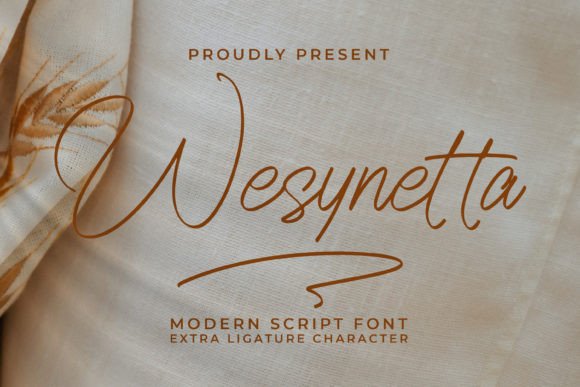
Immerse yourself in the world of Wesynetta, a script font that exudes charm and grace. Crafted by the talented hands at integritypestudio, Wesynetta is a visual masterpiece that captures the essence of timeless elegance.
With its intricate curves and flowing strokes, Wesynetta adds a touch of sophistication to any project. Whether you're designing logos, branding projects, or creating homeware designs, Wesynetta's versatility knows no bounds.
Picture your designs adorned with Wesynetta's beautiful characters, each letter a work of art in its own right. Product packaging, mugs, and quotes will come alive with a touch of sophistication, while posters and shopping bags will exude an air of exclusivity.
Imagine your t-shirts, book covers, and name cards transformed into canvases of creativity, where Wesynetta's elegant lines dance across the page. Invitation cards and greeting cards will carry a heartfelt message, while labels and photography will be elevated to new heights of beauty.
Weddings, birthdays, and other special events will be forever etched in your memory when you incorporate Wesynetta into your designs. Its timeless allure will add a touch of magic to these cherished occasions.
Join the creative journey with Wesynetta and let your imagination run wild. Discover the endless possibilities that await you when you embrace this exquisite script font. Elevate your designs, captivate your audience, and create a lasting impression that will leave them breathless.